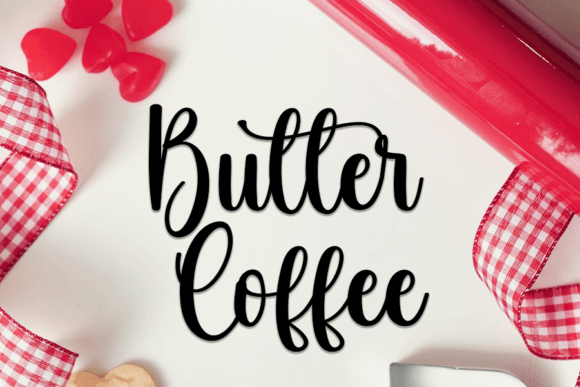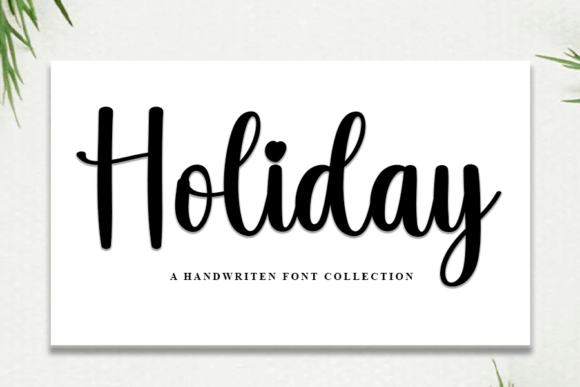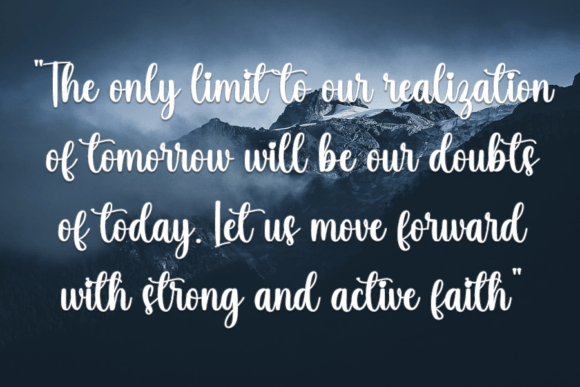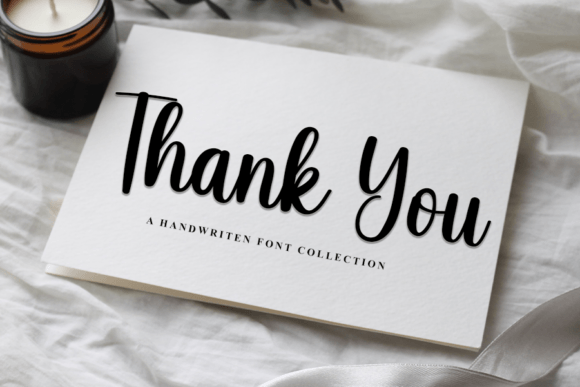
Introducing Business Font: The Ultimate Modern Handwritten Font for Designers and Crafters
Are you tired of using the same old fonts for your designs and crafts? Look no further! Business Font is a cool and modern handwritten font that’s perfect for a variety of projects, from digital design and presentations to greeting cards and crafts. With its unique and stylish aesthetic, Business Font has the potential to become your go-to font for any occasion.
What Makes Business Font So Special?
Business Font stands out from the crowd with its modern and handwritten style. Its clean lines, subtle imperfections, and flowing curves give it a friendly and approachable feel that’s perfect for a wide range of applications. Whether you’re creating a logo, a brochure, or a social media post, Business Font is sure to make your design stand out.
One of the best things about Business Font is its versatility. It’s a font that can be used for both personal and professional projects, making it a great addition to any designer’s or crafter’s toolkit. Here are just a few examples of how you can use Business Font:
- Crafts: Use Business Font to add a personal touch to your handmade crafts, such as knitting patterns, sewing projects, or scrapbooking.
- Digital Design: Business Font is perfect for digital designers who want to add a touch of personality to their work. Use it for social media posts, blog headers, or website designs.
- Presentations: Make your presentations stand out with Business Font. Its modern and stylish aesthetic is sure to impress your audience.
- Greeting Cards: Create beautiful and unique greeting cards with Business Font. Its handwritten style gives it a personal and heartfelt feel that’s perfect for special occasions.
Why Choose Business Font?
With so many fonts to choose from, why should you choose Business Font? Here are just a few reasons:
- Unique Style: Business Font has a unique and stylish aesthetic that’s sure to make your designs stand out.
- Easy to Read: Despite its handwritten style, Business Font is easy to read and understand, making it perfect for body text and headings.
- High-Quality: Business Font is a high-quality font that’s designed to look great on any device or medium.
- Flexible: Business Font is a versatile font that can be used for a wide range of projects, from personal crafts to professional designs.
Tips for Using Business Font
Here are a few tips for getting the most out of Business Font:
- Experiment with Sizes: Business Font looks great in a variety of sizes, from small body text to large headings.
- Play with Colors: Business Font looks great in a range of colors, from bold and bright to subtle and pastel.
- Mix and Match: Don’t be afraid to mix and match Business Font with other fonts to create a unique and stylish aesthetic.
Business Font is a cool and modern handwritten font that’s perfect for designers and crafters who want to add a touch of personality to their work. With its unique style, versatility, and high-quality design, Business Font has the potential to become your go-to font for any occasion. So why not give it a try and see the difference it can make in your designs?